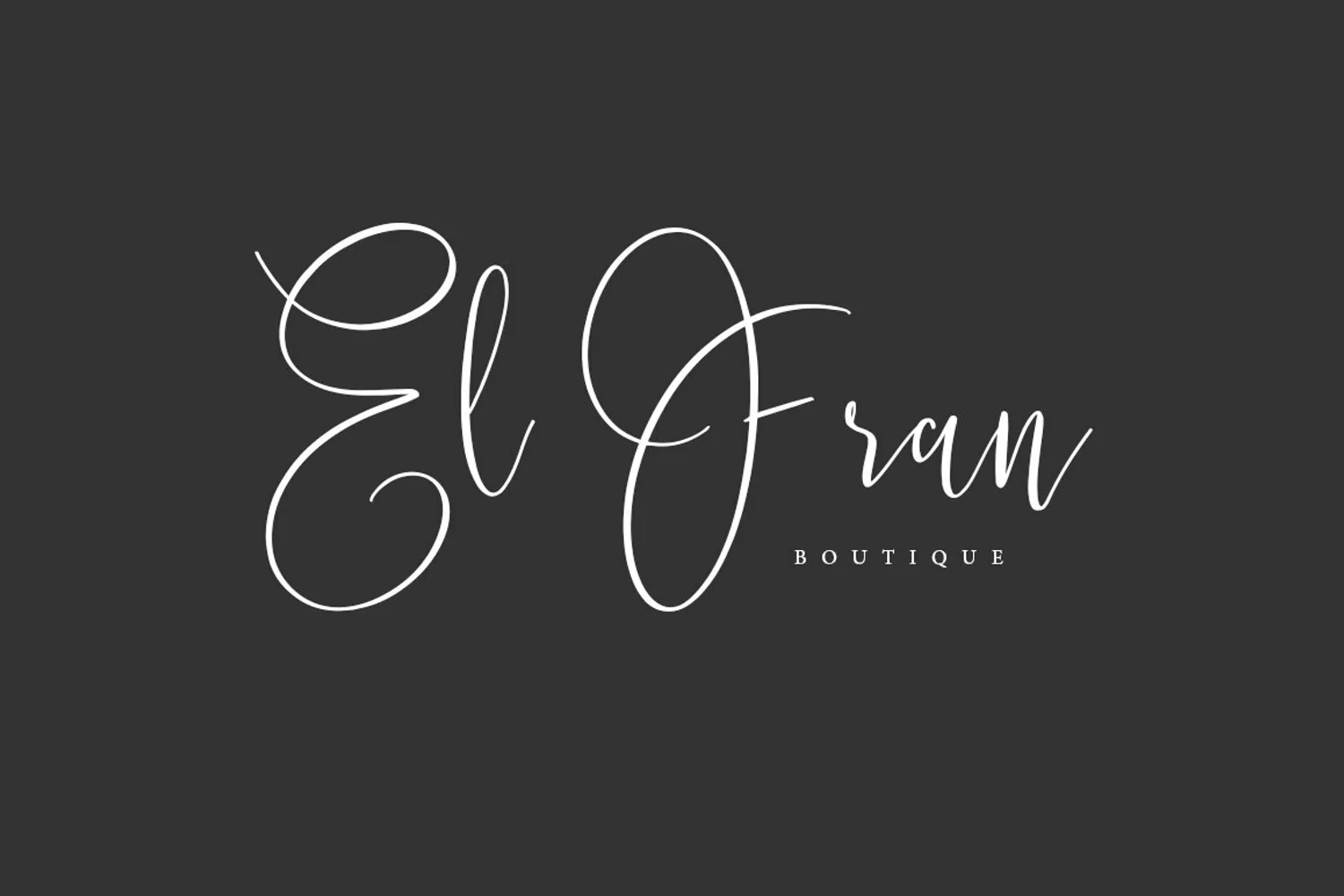
Hello,Introduce, my name is Solevate typeface, I was made by authentic handwriting. I made it because want to make it to easier create a logo font. You have the advantage of making a beautiful logo, beautify a t-shirt design, and you can make it easier of work on create packaging design, and more.In this zip files included 4 files: